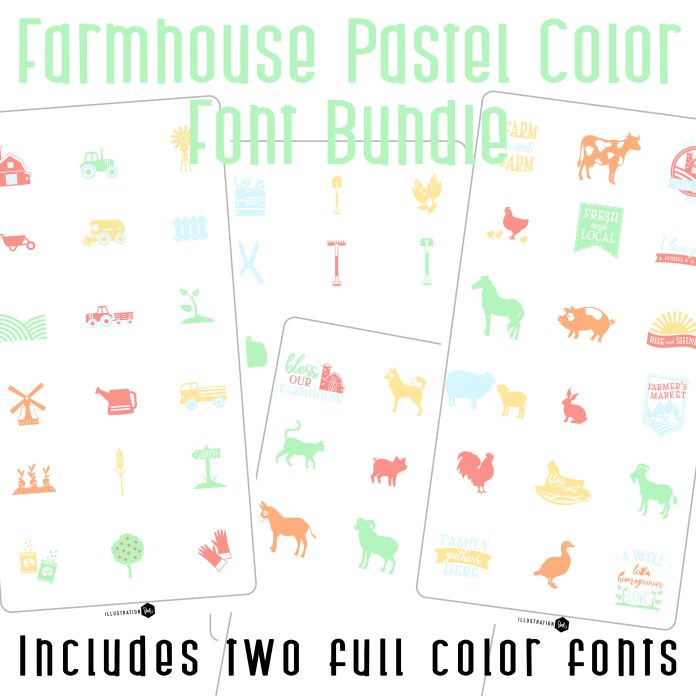
This bundle includes two full color dingbat fonts for one low price! With two dingbats you get 52 total images with 26 Farm and garden imagery and 26 farm animals. Perfect for cards, crafts, gifts, decor, classrooms, planner stickers, scrap book pages and more!